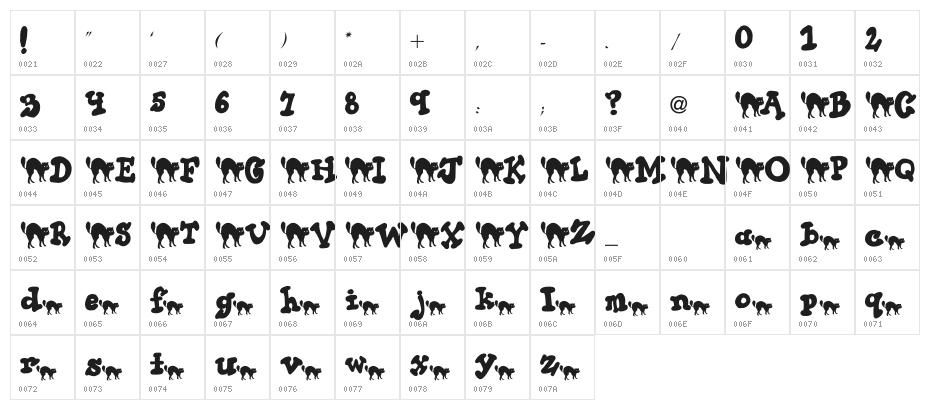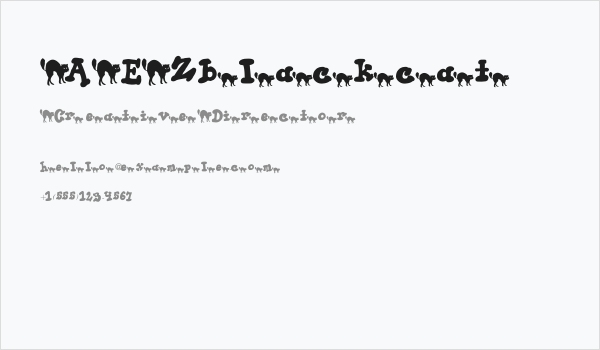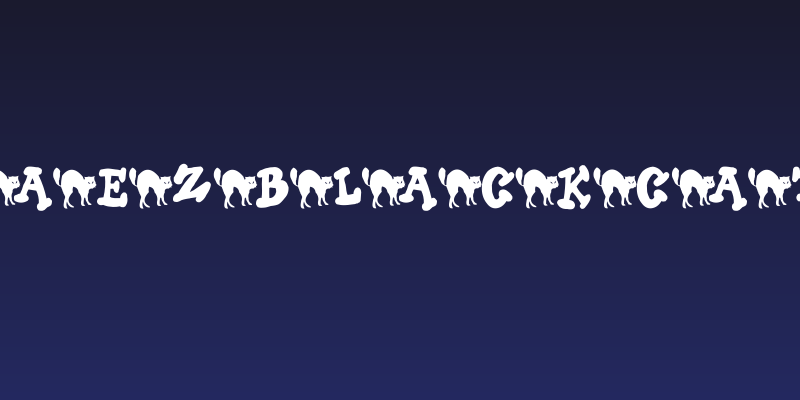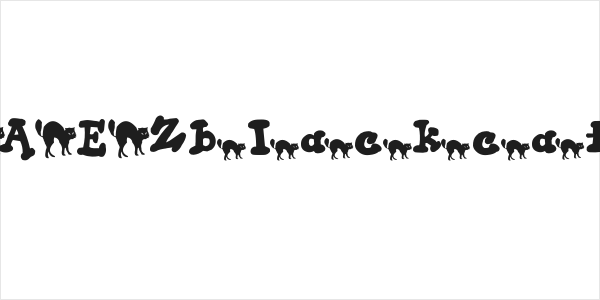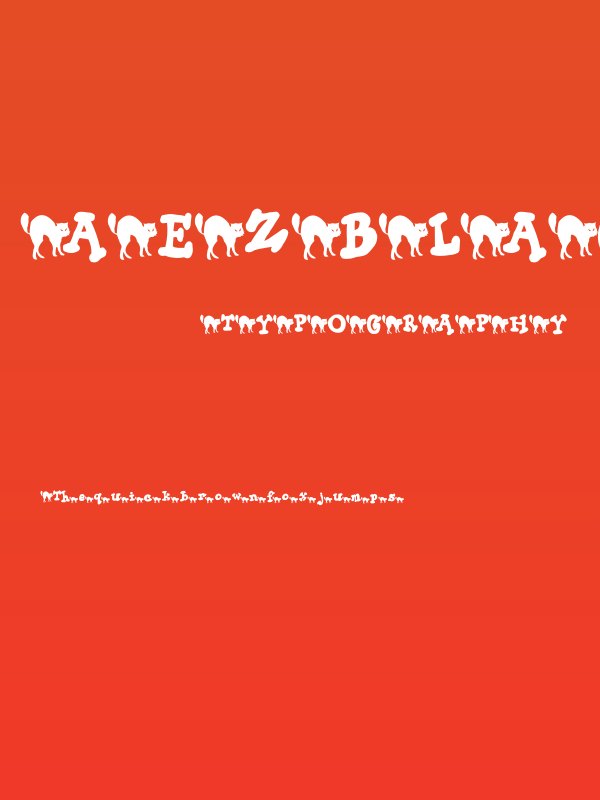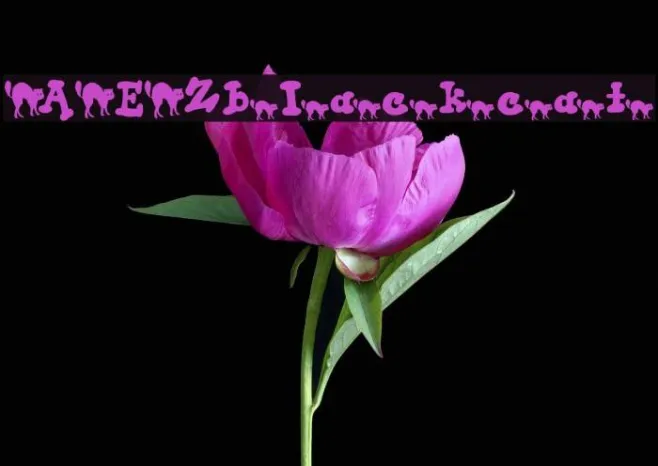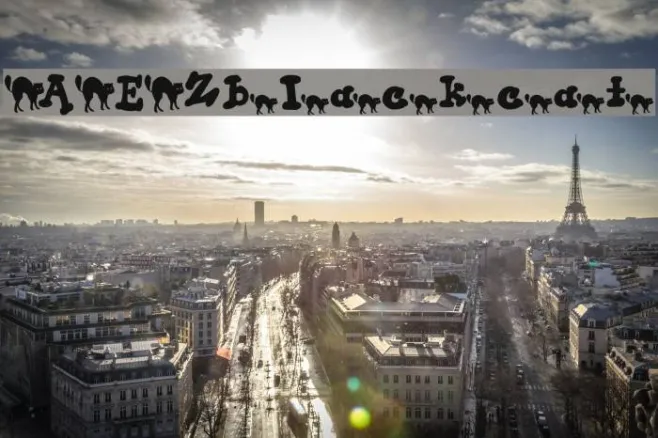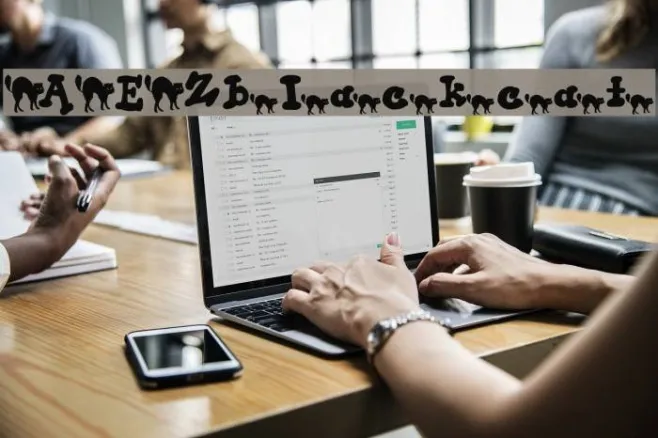
AEZ black cat Font
AEZ black cat Description
This playful and whimsical font features silhouettes of black cats integrated into each letter and number, creating a unique and eye-catching design. The characters are bold and rounded, with each letter incorporating a cat motif that adds a sense of fun and creativity. The font is highly decorative, making it ideal for projects that require a touch of humor or a thematic element related to cats or Halloween. The numbers and special characters maintain the same playful style, ensuring consistency across all text elements.
| Use Case | Headlines, Logos, Themed Invitations |
| Proposed Projects | Ideal for Halloween-themed designs, children's books, pet-related branding, or playful invitations. |